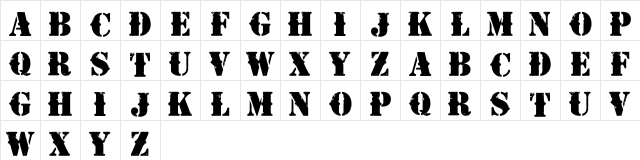
Napalm Vertigo Regular Free Font
Napalm Vertigo Regular
Complete Napalm Vertigo Regular glyph index. Displaying only characters natively supported by Napalm Vertigo Regular font.
Design Context for Napalm Vertigo
Napalm Vertigo is a composed and adaptable typeface that performs quietly and consistently across a wide range of design contexts.